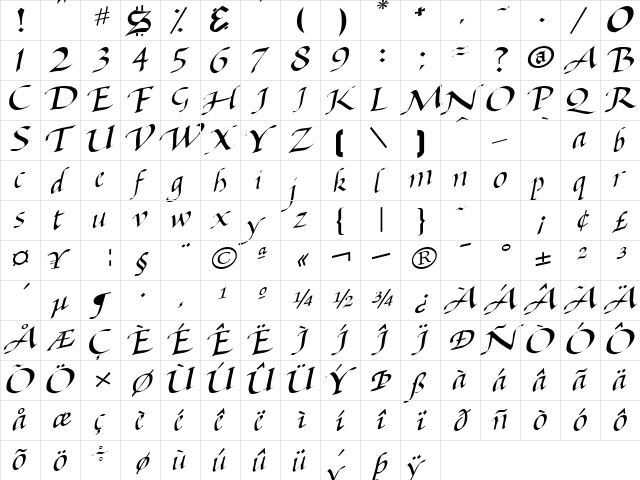
Baggage Regular
Design Context for Baggage Typeface
Baggage takes a measured approach to typography — its balanced proportions and neutral character make it a reliable workhorse for both digital and print work.
Pro Tip: Pair Baggage with a font of contrasting weight or personality to build a more expressive typographic hierarchy.